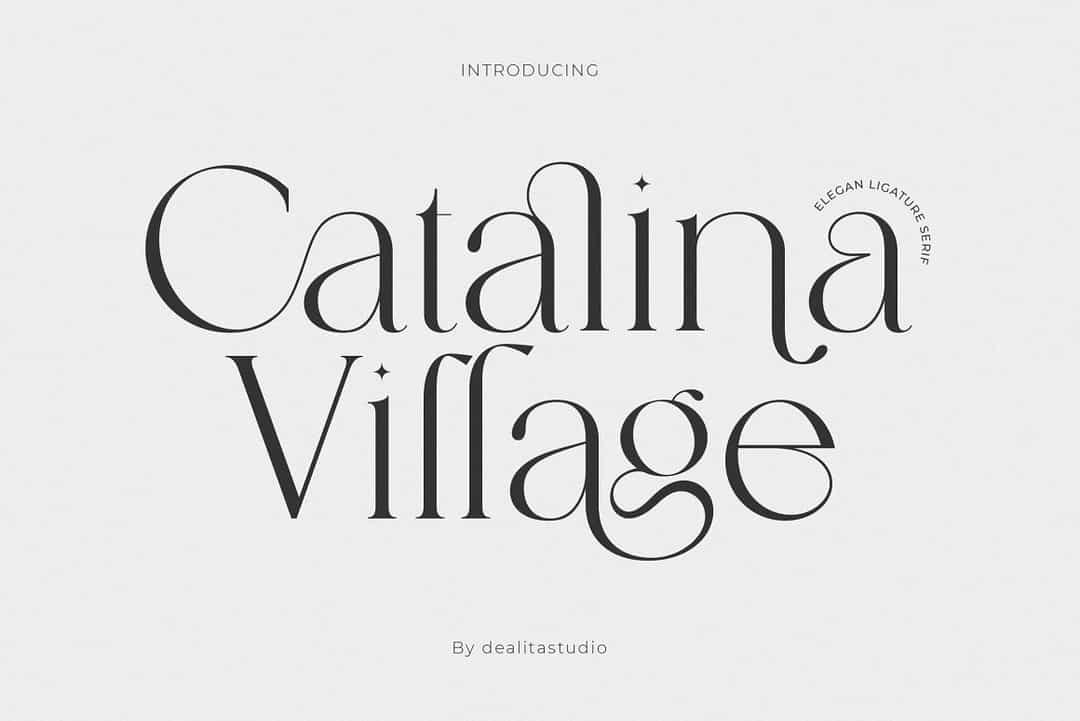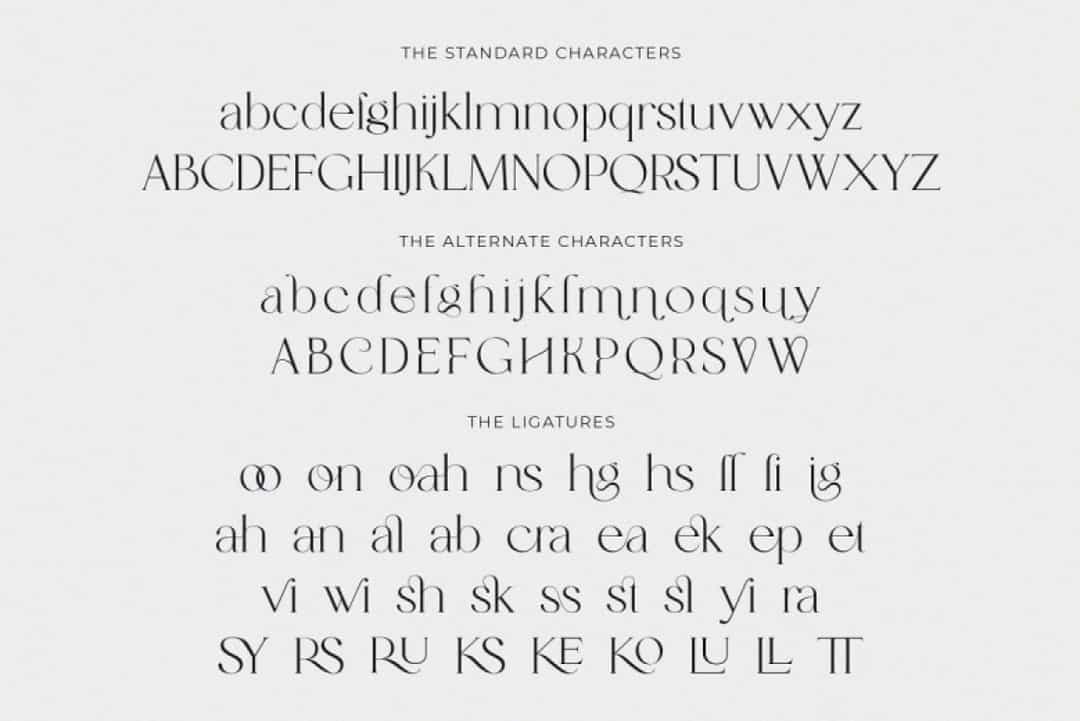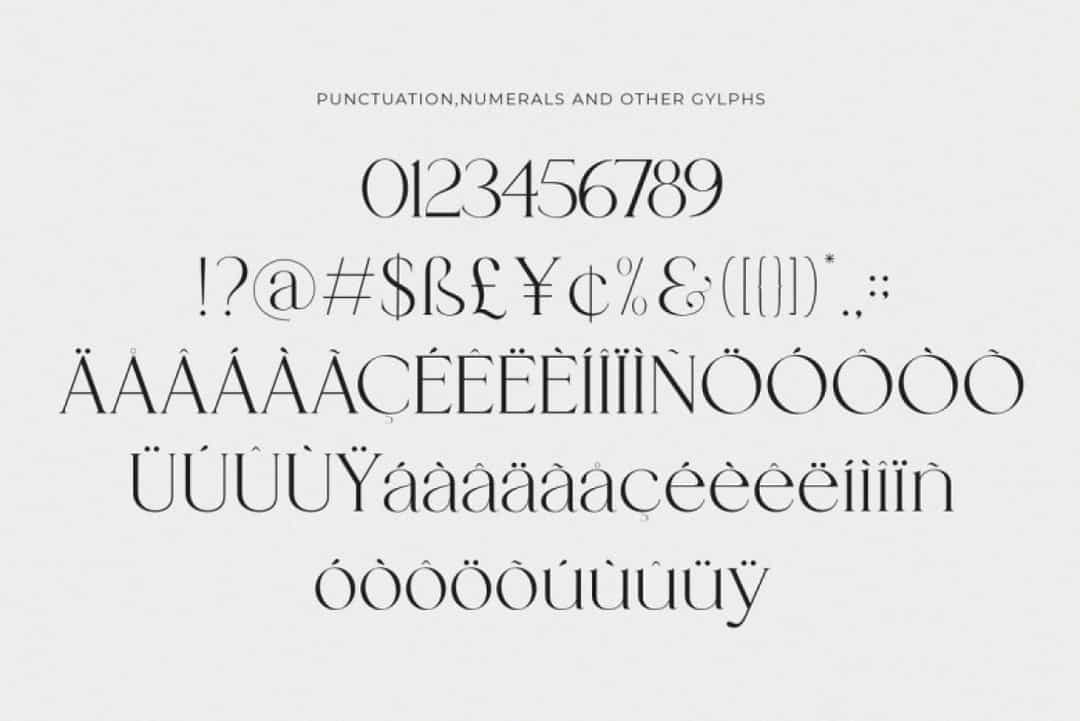
Catalina Village – an elegant and chic display featuring a modern serif typeface featuring stunning contrast – was specifically created for fashion projects. Ideal for creating fashionable titles, logos and magazines among others.